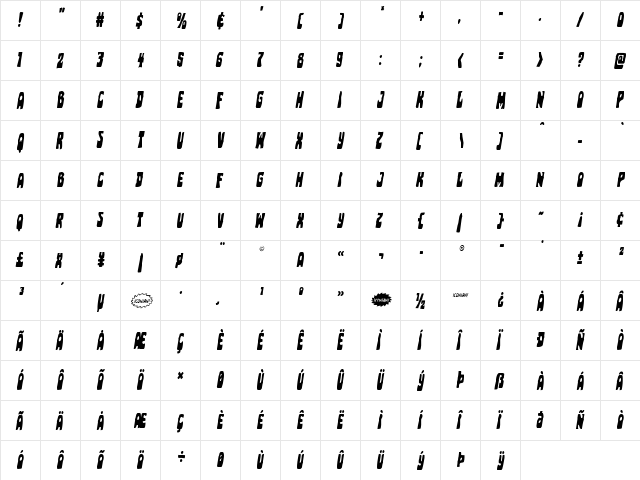
Pocket Monster Condensed Italic Font Preview
Design Context for Pocket Monster Condensed Italic Typeface
Pocket Monster Condensed Italic is a composed and adaptable typeface that performs quietly and consistently across a wide range of design contexts. The slanted form adds forward momentum and visual energy. Its narrow stance lets it pack a punch even in space-constrained designs.